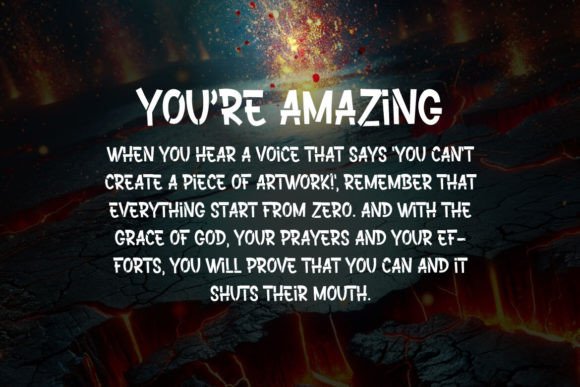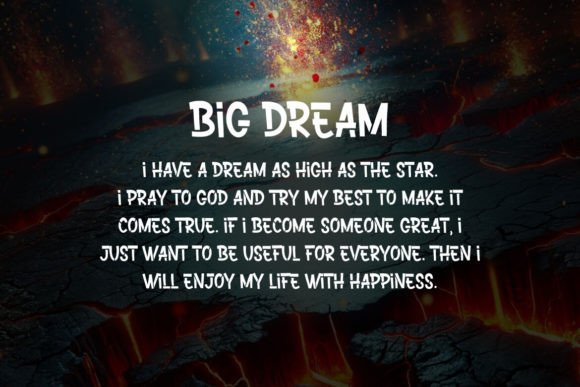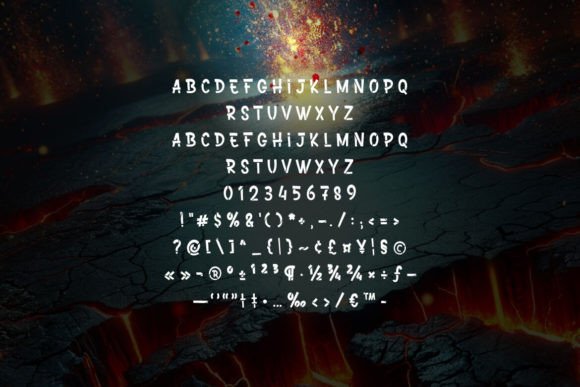
Unleash Your Creativity with Earthquaker Font
Are you tired of using the same old fonts for your designs? Do you want to add a playful touch to your projects and make them stand out? Look no further than the Earthquaker Font, a lively and whimsical typeface that’s perfect for creative designers and crafters. In this article, we’ll explore the features and benefits of Earthquaker Font and show you how to make the most of this amazing display font.
What is Earthquaker Font?
Earthquaker Font is a display font that’s designed to bring joy and personality to your text. With its lively and whimsical style, this font is perfect for eye-catching headlines, posters, greeting cards, invitations, and more. Whether you’re a designer, crafter, or DIY enthusiast, Earthquaker Font is a great way to add a splash of fun to your designs and make your text vibrant and engaging.
Key Features of Earthquaker Font
- Lively and Whimsical Style: Earthquaker Font has a unique and playful style that’s sure to grab attention.
- Perfect for Display Text: This font is designed for display text, making it perfect for headlines, titles, and other prominent text elements.
- Easy to Read: Despite its playful style, Earthquaker Font is easy to read, even at smaller sizes.
- Versatile: Earthquaker Font can be used for a wide range of projects, from posters and flyers to greeting cards and invitations.
Benefits of Using Earthquaker Font
So why should you choose Earthquaker Font for your next project? Here are just a few benefits of using this amazing display font:
- Adds Personality to Your Text: Earthquaker Font is a great way to add a playful touch to your text and make it stand out.
- Grabs Attention: With its lively and whimsical style, Earthquaker Font is sure to grab attention and draw the eye.
- High-Quality Design: Earthquaker Font is designed to high standards, ensuring that your text looks great and is easy to read.
How to Use Earthquaker Font
Using Earthquaker Font is easy. Here are a few tips to get you started:
- Choose the Right Size: Earthquaker Font is designed for display text, so choose a size that’s large enough to make an impact.
- Experiment with Colors: Earthquaker Font looks great in a wide range of colors, so don’t be afraid to experiment and find the perfect color for your project.
- Pair with Other Fonts: Earthquaker Font can be paired with other fonts to create a unique and interesting look.
Project Ideas Using Earthquaker Font
Earthquaker Font is a versatile font that can be used for a wide range of projects. Here are a few ideas to get you started:
- Posters and Flyers: Earthquaker Font is perfect for creating eye-catching posters and flyers.
- Greeting Cards and Invitations: Add a playful touch to your greeting cards and invitations with Earthquaker Font.
- Social Media Graphics: Earthquaker Font is a great choice for social media graphics, such as Facebook posts and Instagram stories.
- Logos and Branding: Earthquaker Font can be used to create unique and memorable logos and branding.
Earthquaker Font is a lively and whimsical display font that’s perfect for creative designers and crafters. With its unique style and versatility, this font is sure to add a playful touch to any project. Whether you’re creating posters, greeting cards, or social media graphics, Earthquaker Font is a great choice. So why not give it a try and see the difference it can make?